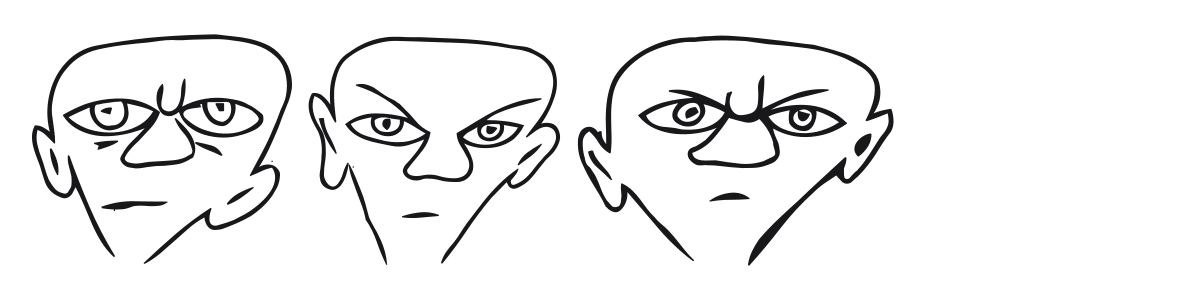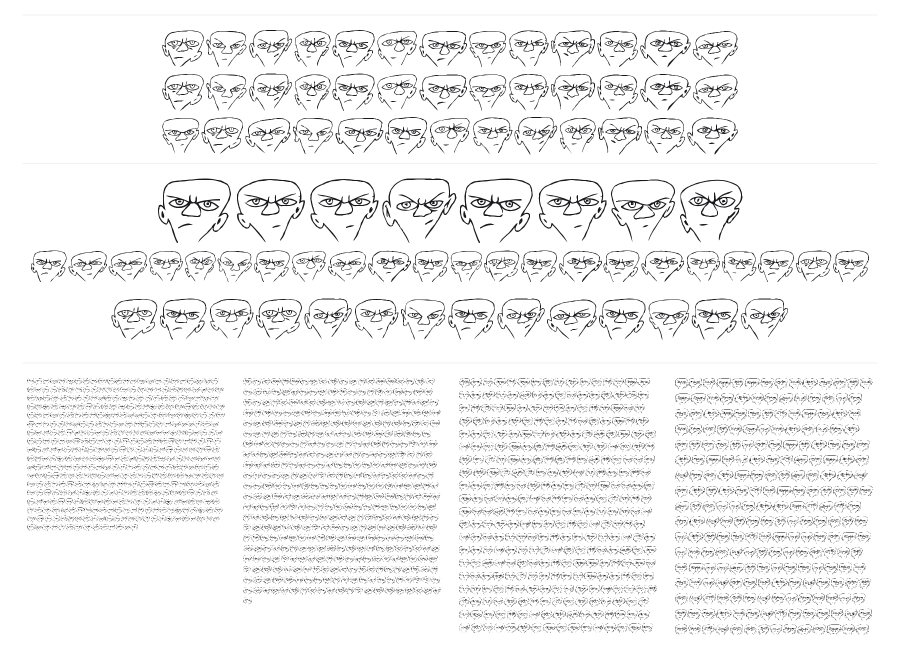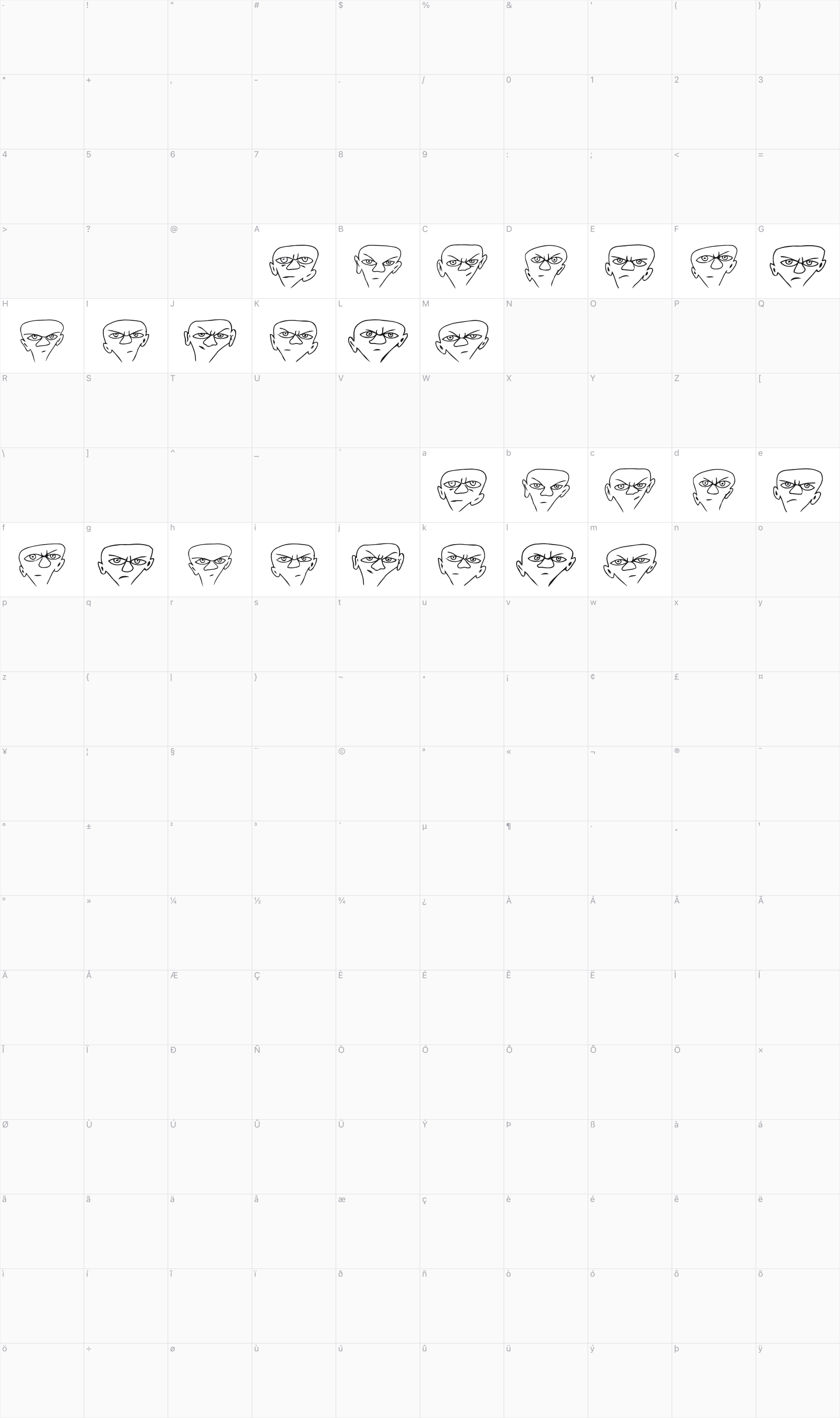
Pablo
Pablo is a dingbat font made up of caricatured male faces, each slightly different in expression and angle, all drawn in a thin outline style. The line-art has a hand-drafted, comic quality with a recurring grumpy or stern look across the set. It works as a novelty icon font for editorial illustration, social content, or anywhere a wall of expressive faces would land.